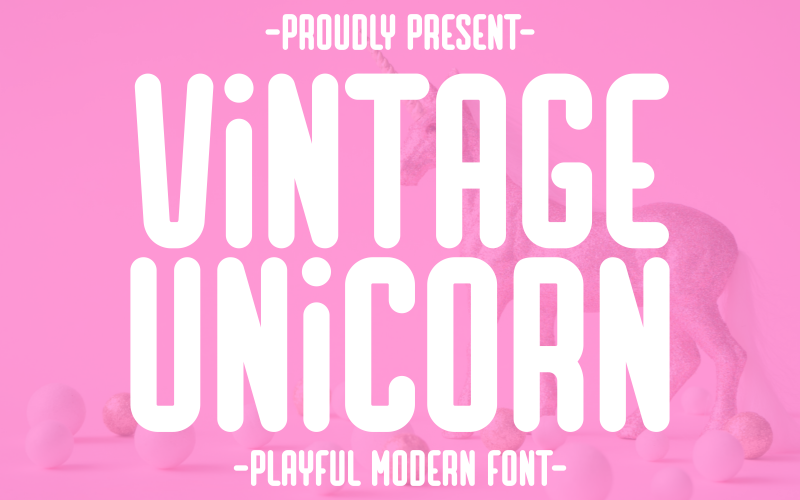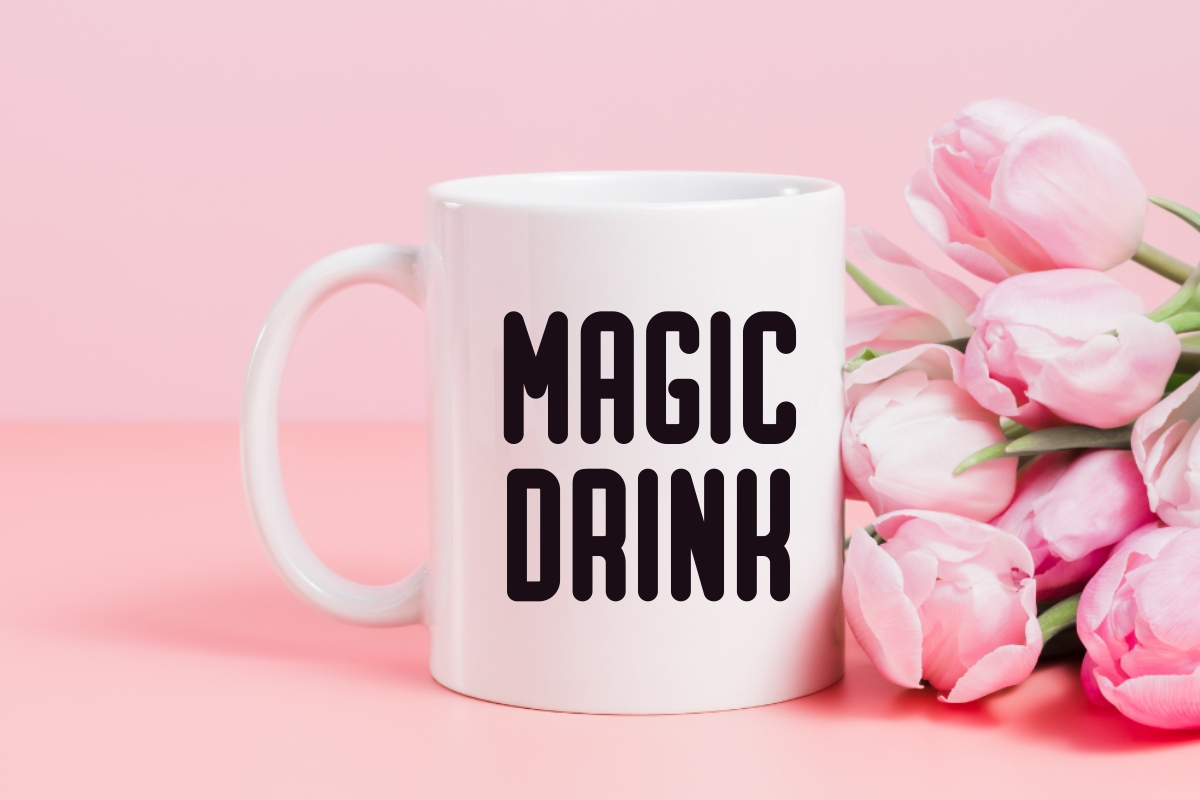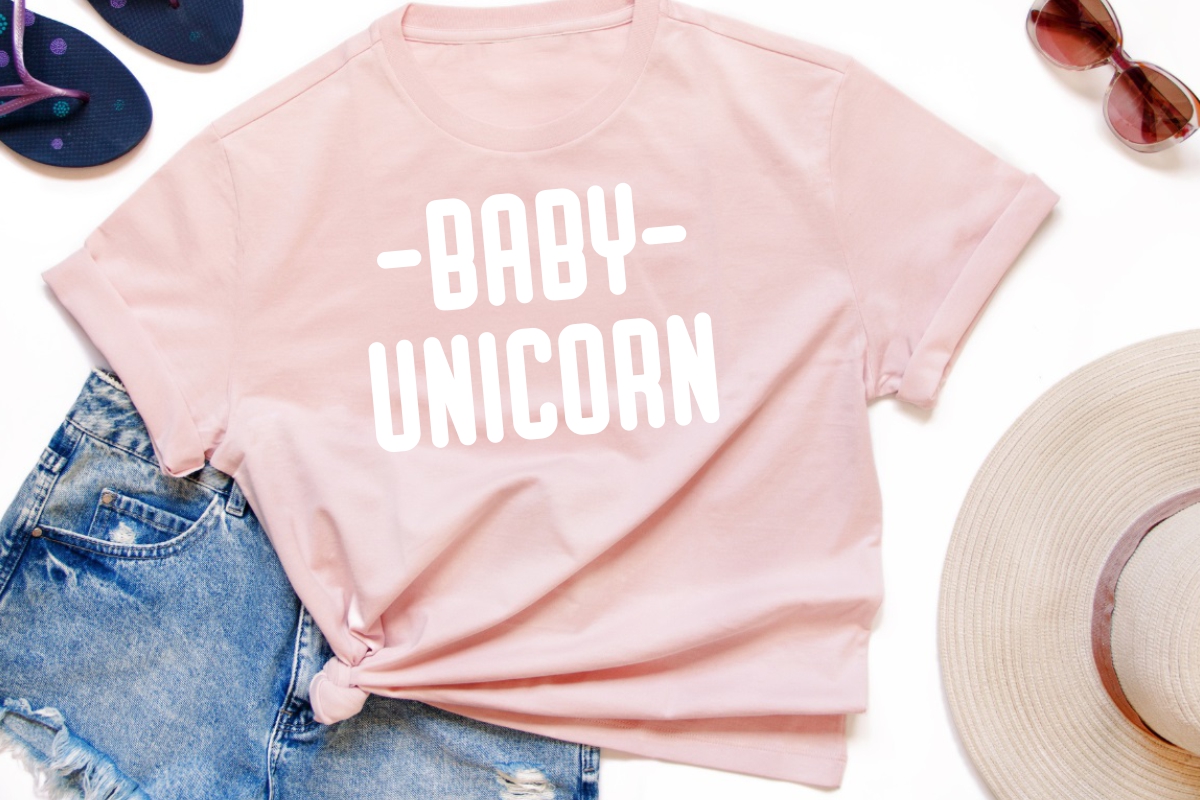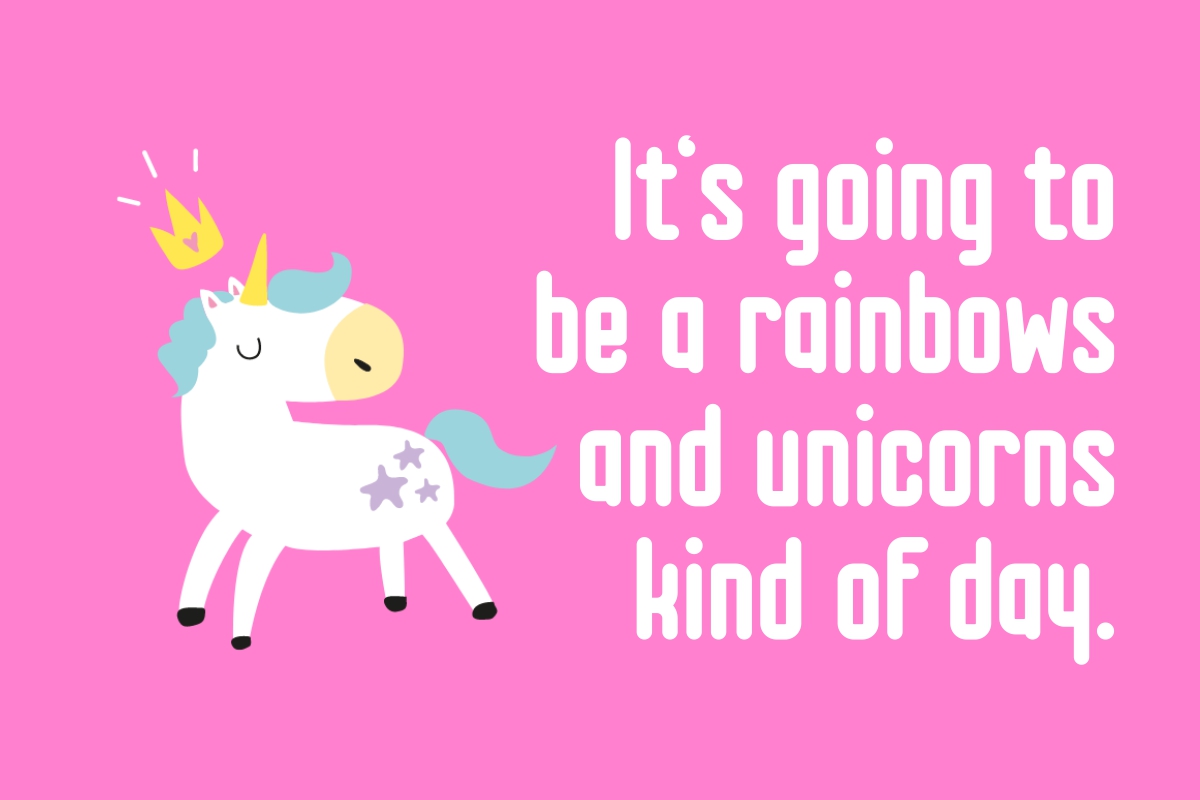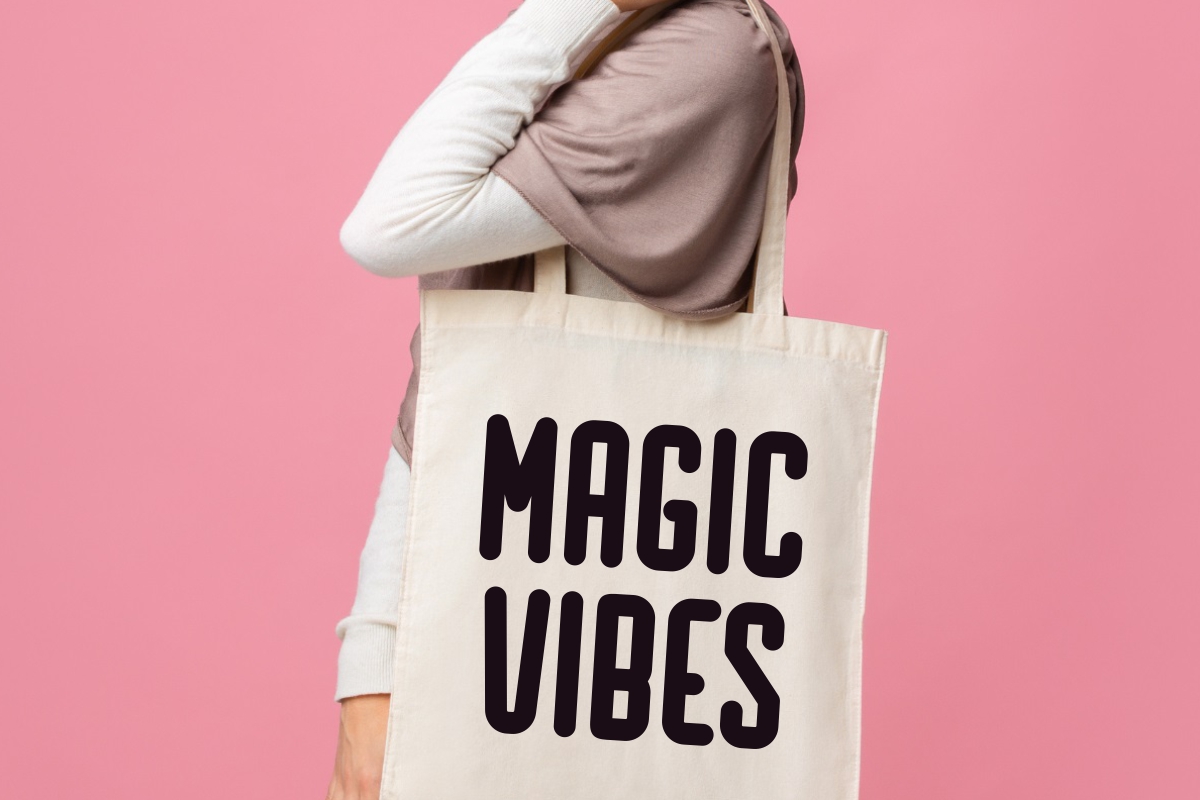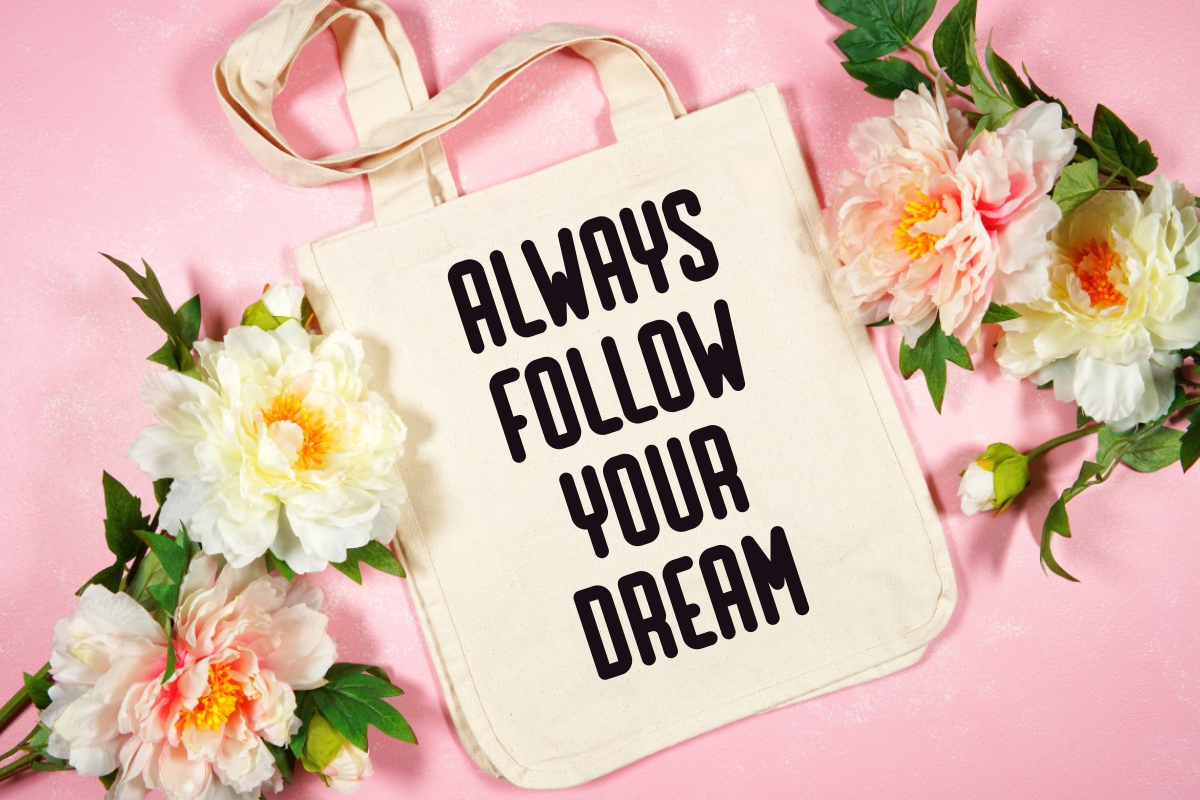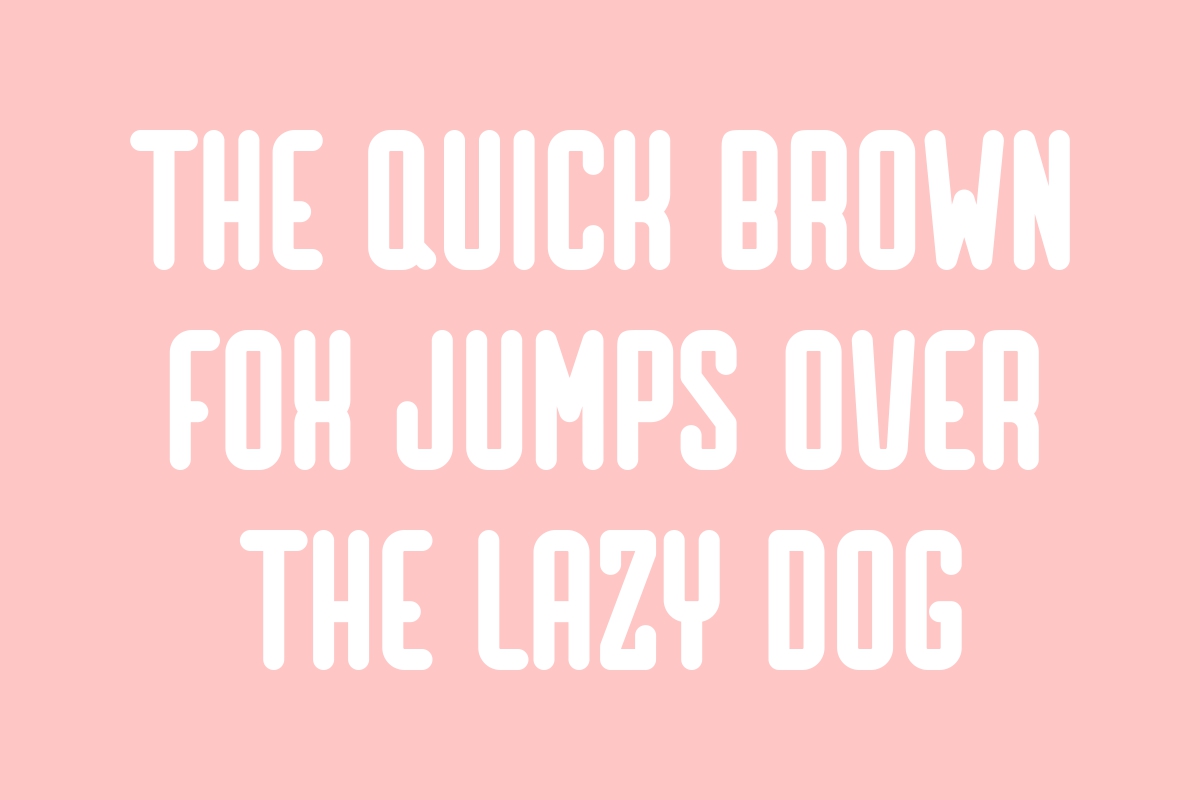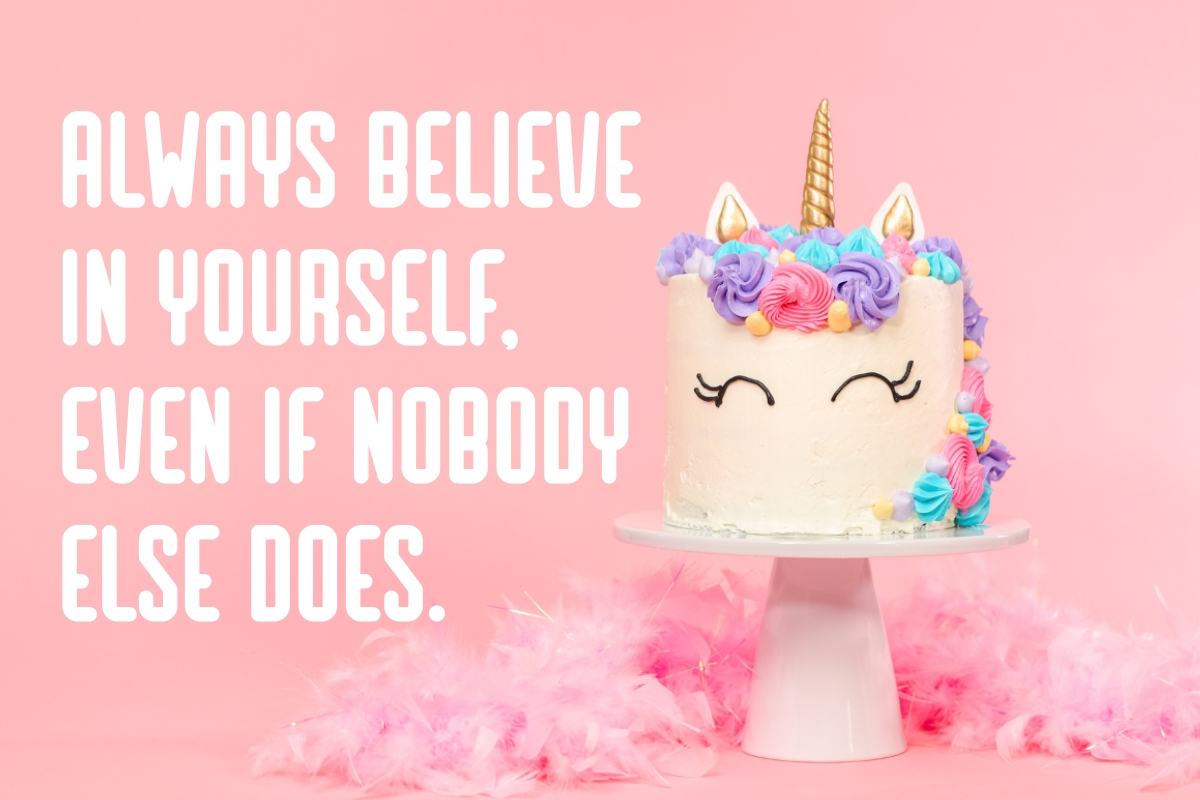
Vintage Unicorn - Playful Typeface Font
Vintage Unicorn is a charming and playful modern font that exudes a delightful retro aesthetic. Its bold, rounded, and condensed letterforms give it a bubbly and friendly personality, perfect for designs that aim to be fun, sweet, and eye-catching. Inspired by 70s and 80s typography, this all-caps display font is ideal for children's products, groovy event posters, social media graphics, cute branding, or anything needing a whimsical and nostalgic touch. It's the perfect typeface to bring a sense of joy and lightheartedness to any project.